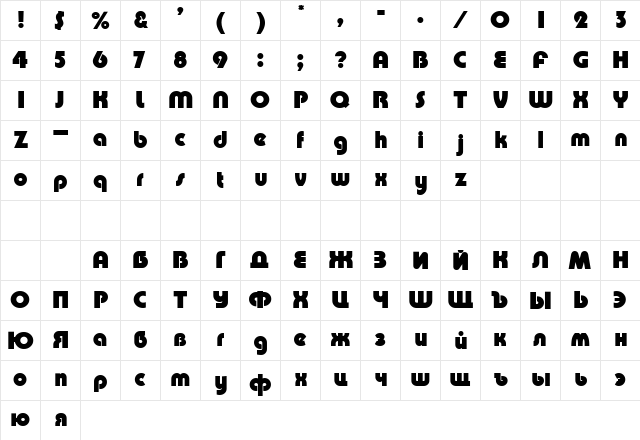
DG_Pump Normal Font Preview
DG_Pump Normal
Design Context for DG_Pump Typeface
DG_Pump offers clean, dependable letterforms without strong stylistic allegiance, making it a practical choice for designers who need flexibility.